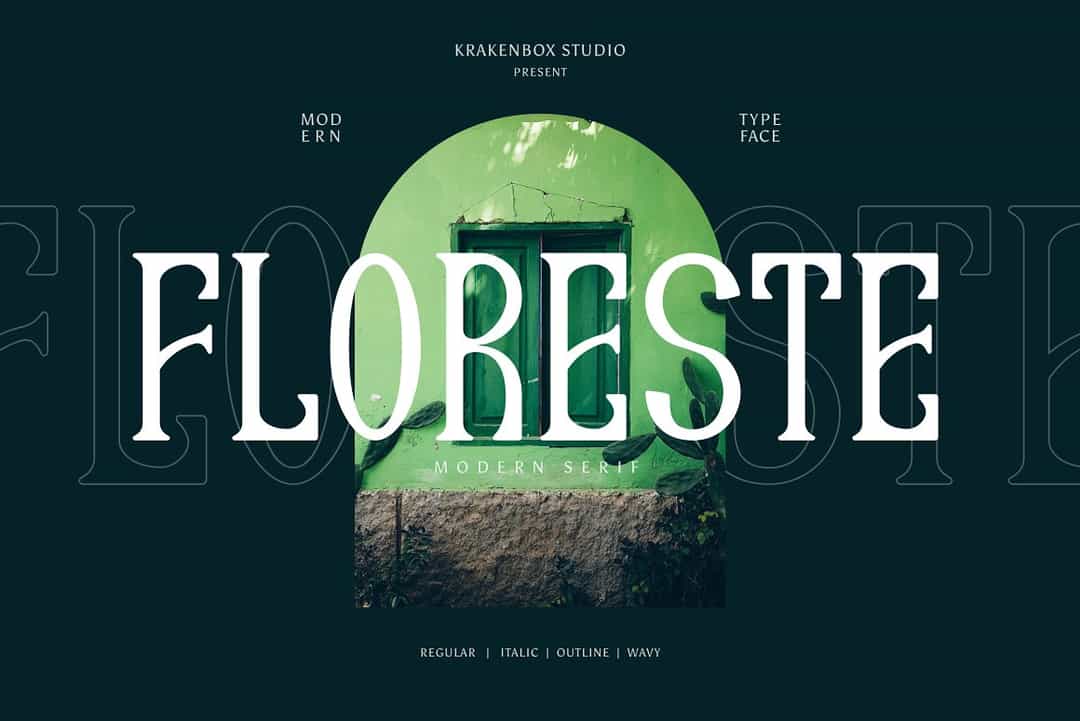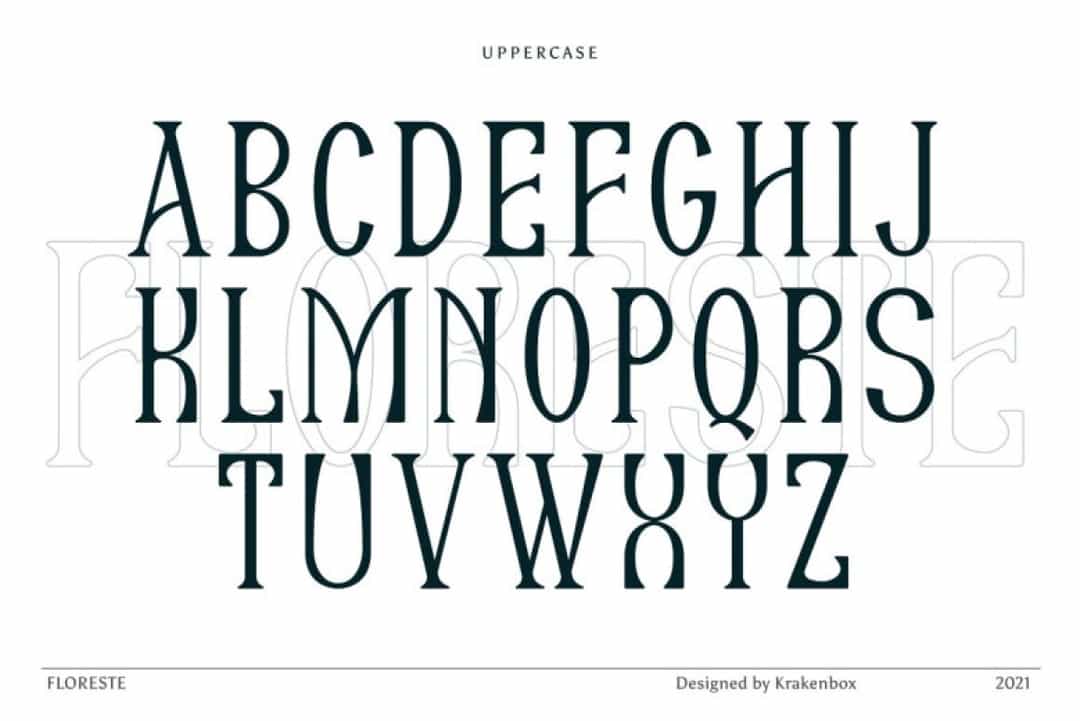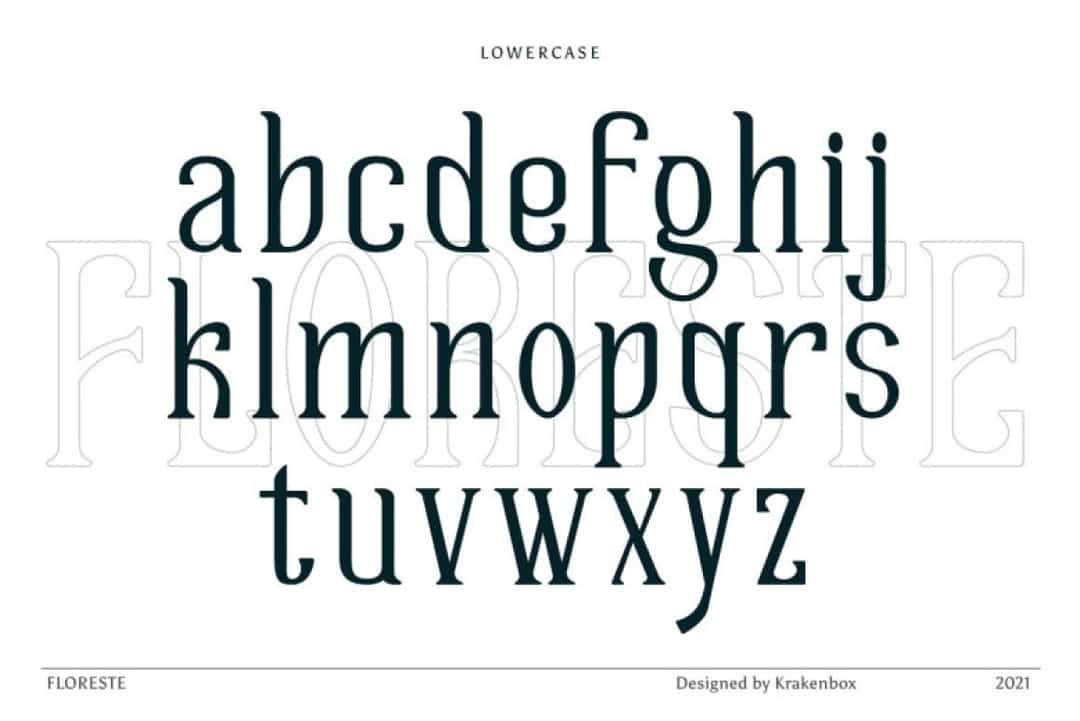
Floreste is a contemporary display serif font with sophisticated, elegant and modern features that makes it suitable for clothing projects, fashion projects, album cover logos as well as magazines, branding advertisements social media posts or any other design you could imagine! Use Floreste to give any project that stylish finish!